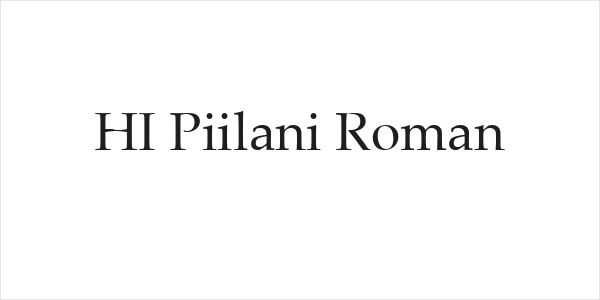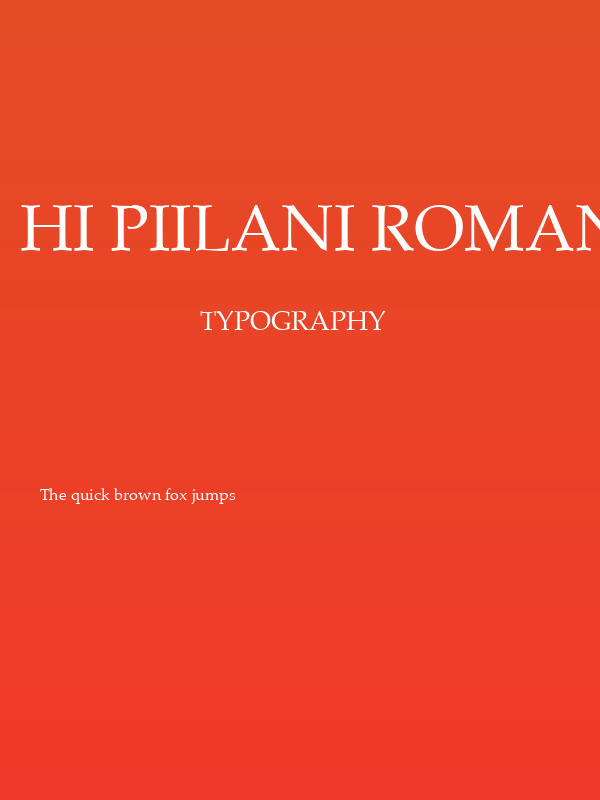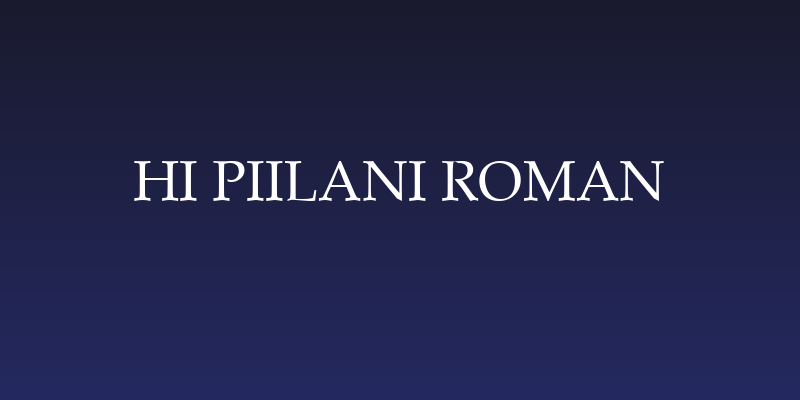
HI Piilani Roman Font
HI Piilani Roman Description
This font exhibits a classic serif style with elegant and refined strokes. The uppercase letters are bold and commanding, while the lowercase letters maintain a balanced and readable form. The numerals are clear and distinct, making them suitable for both formal and casual contexts. Special characters are well-integrated, maintaining the font's overall aesthetic. The serifs are pronounced, adding a touch of sophistication and tradition. This font is versatile, suitable for a variety of design projects that require a touch of elegance and readability.
| Proposed Projects | Ideal for book covers, formal invitations, editorial layouts, and branding materials. |